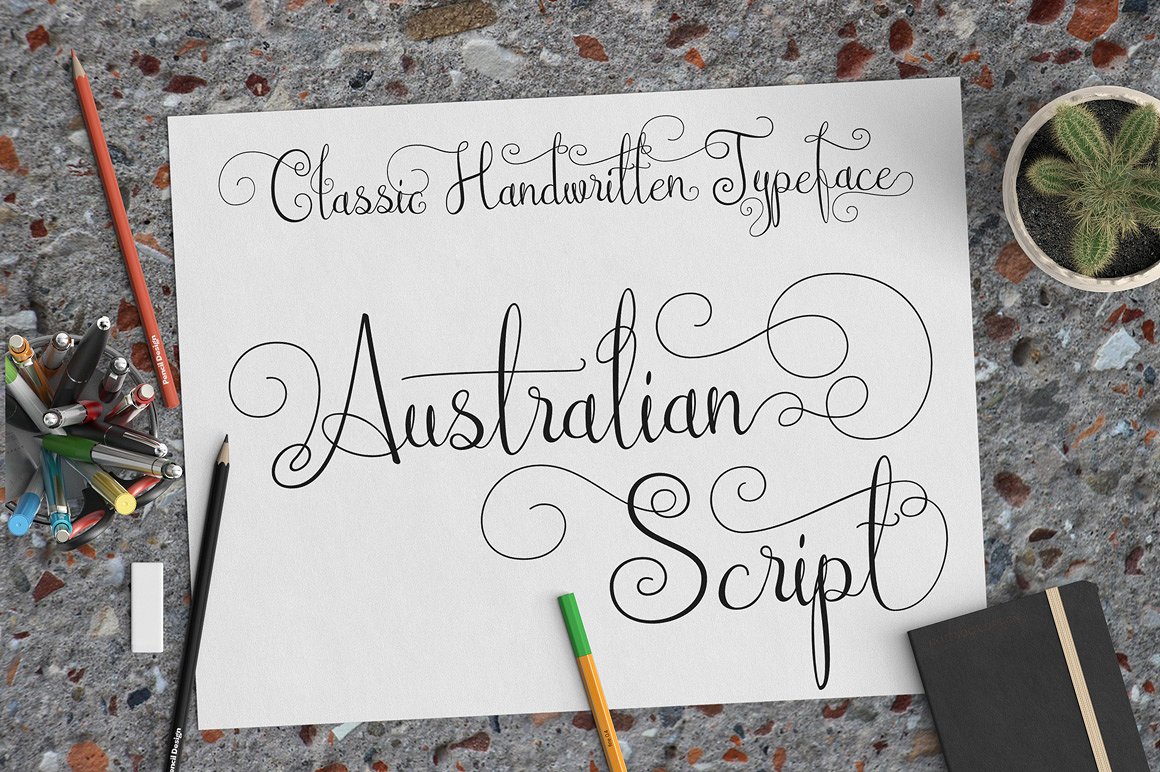
Australian Script
Australian Script Font
Introducing cute and playful script, with natural and dynamically handmade touch. This font use two alternate each lowercase letter to avoid same letter in a pair, and sure there is hundreds swashy character to make your text look nice for wedding invitation card.